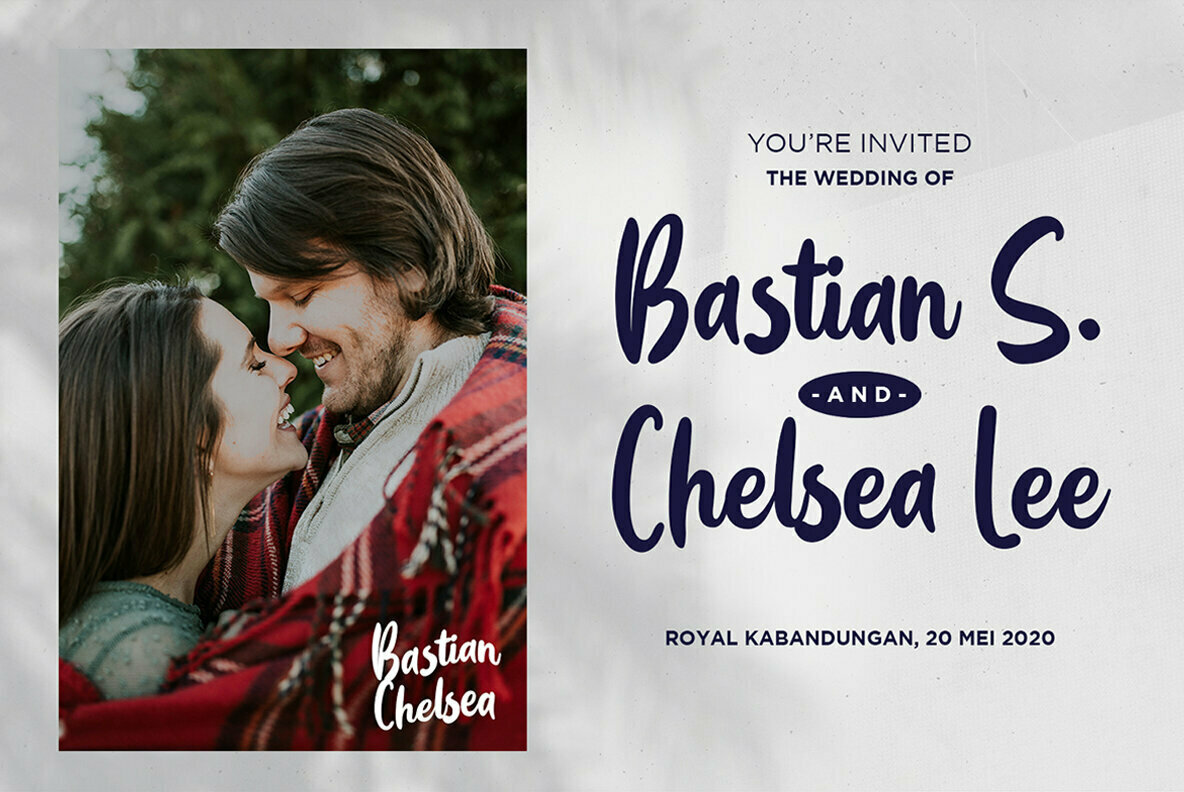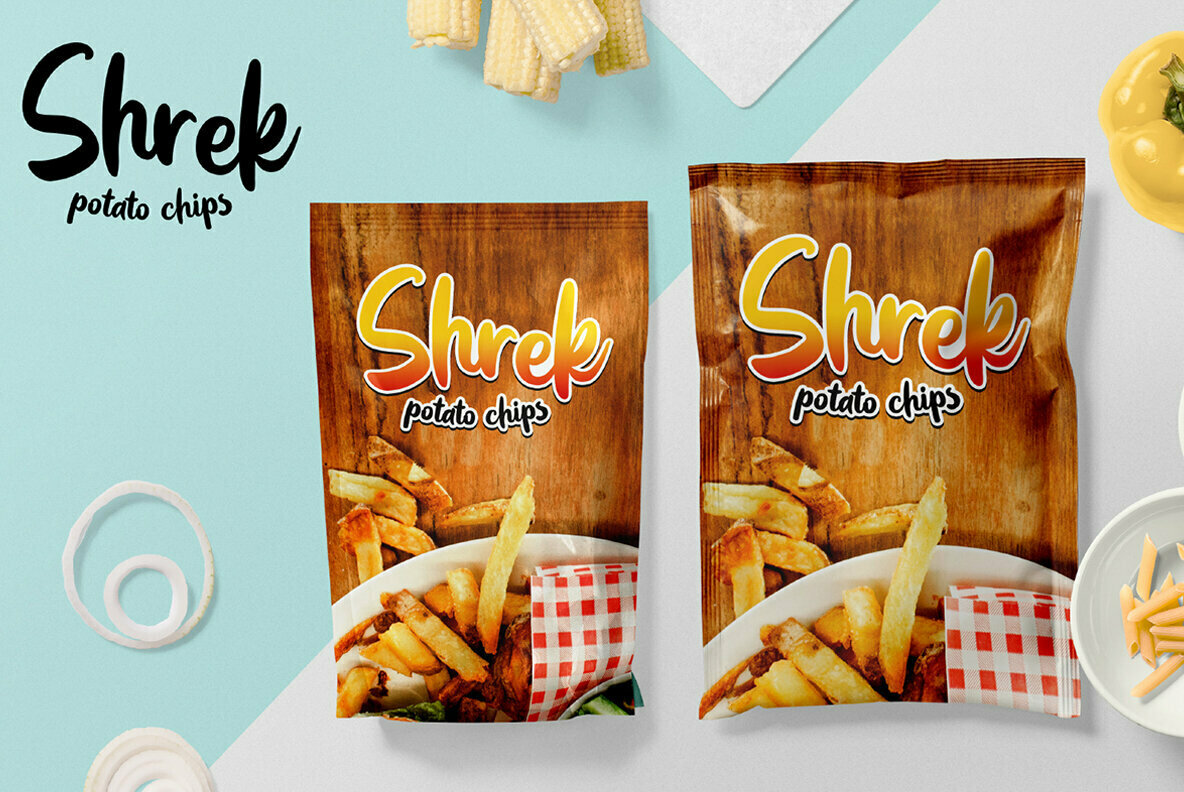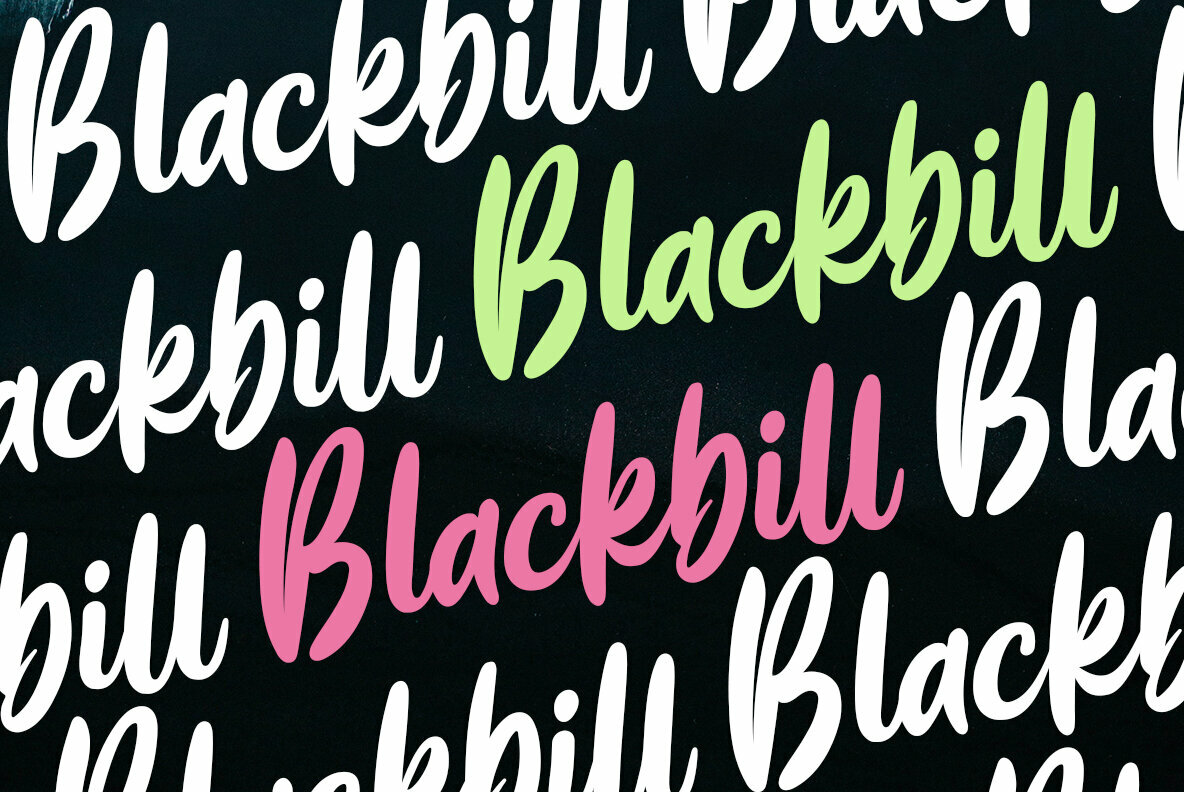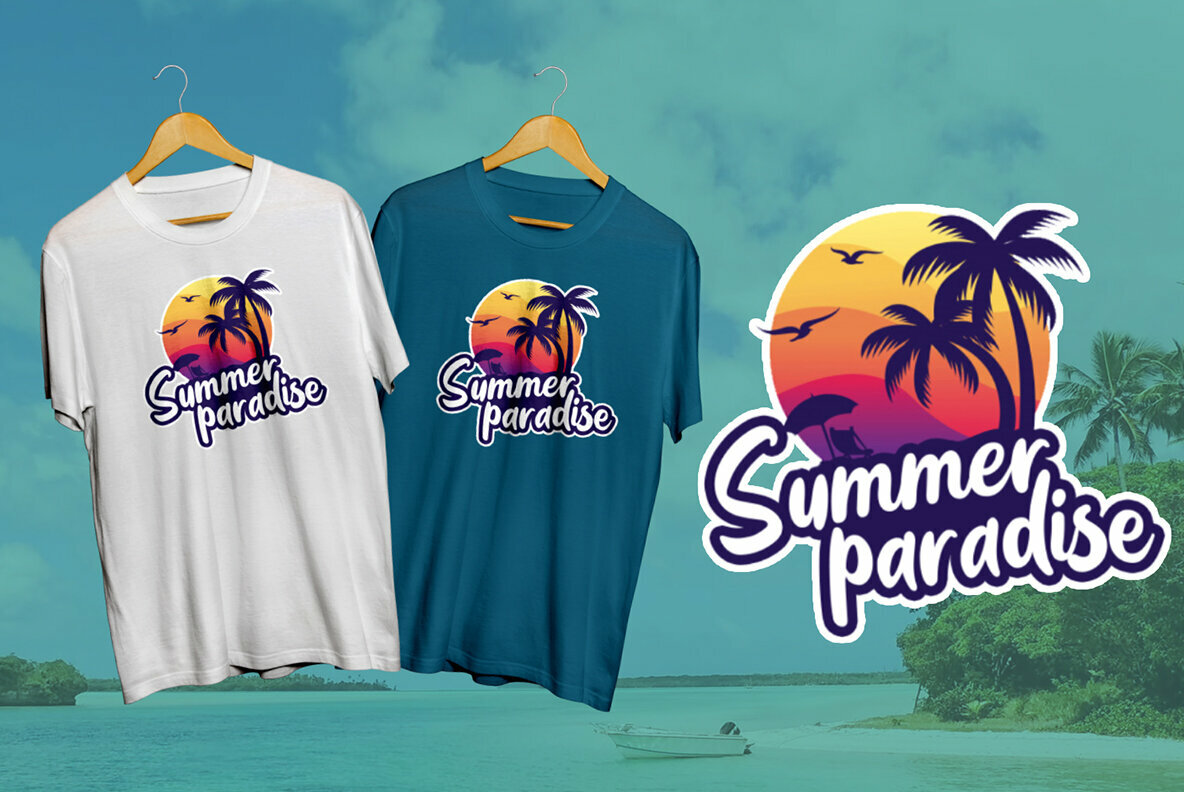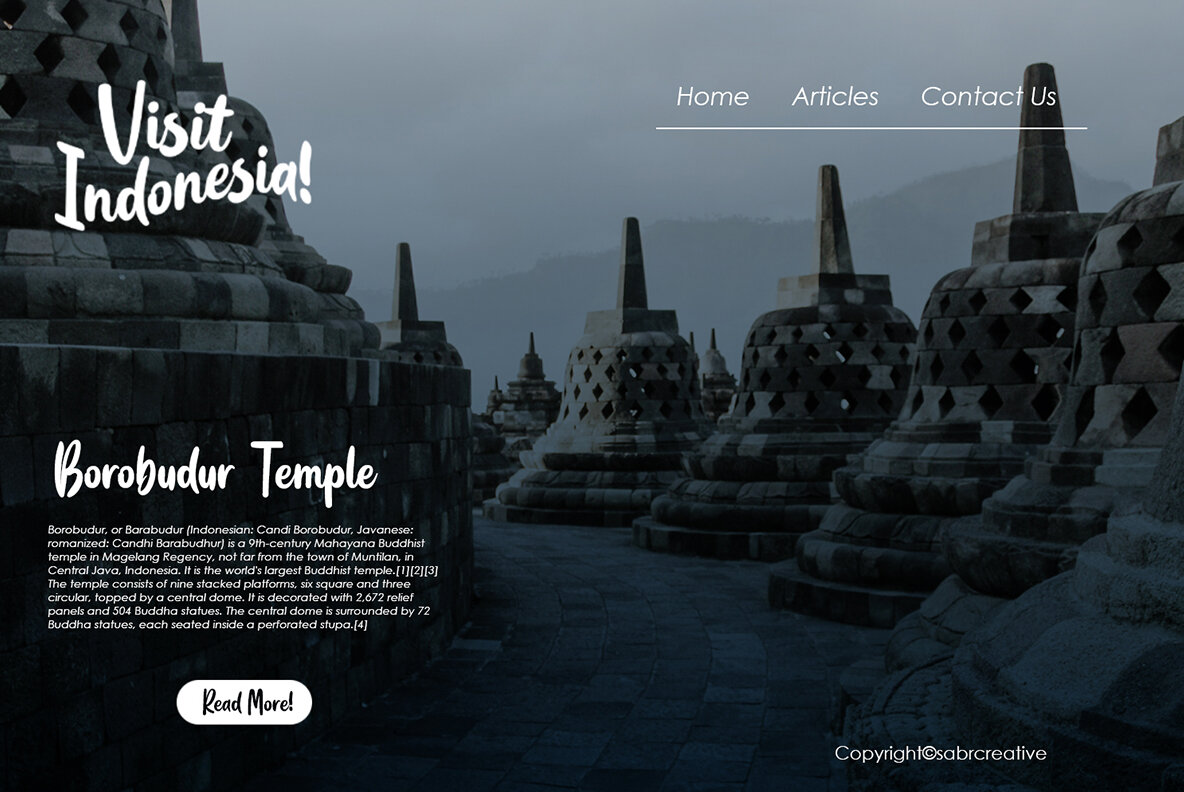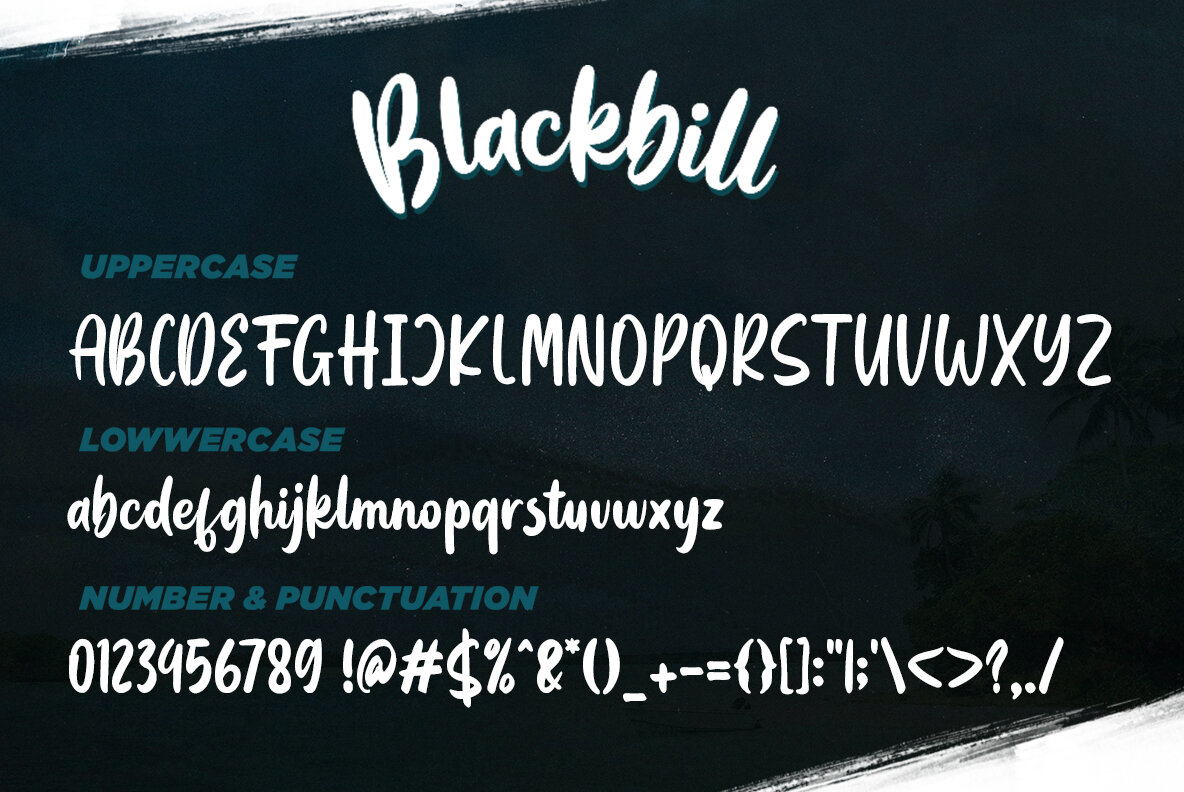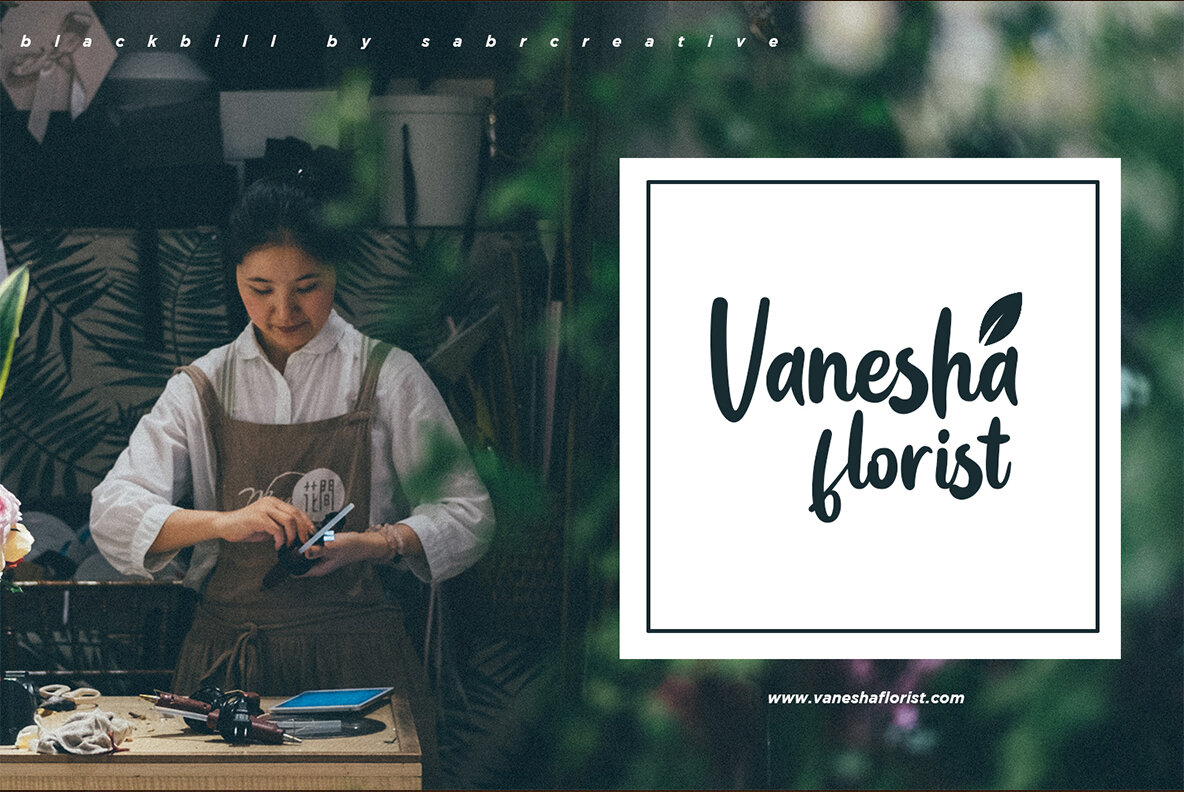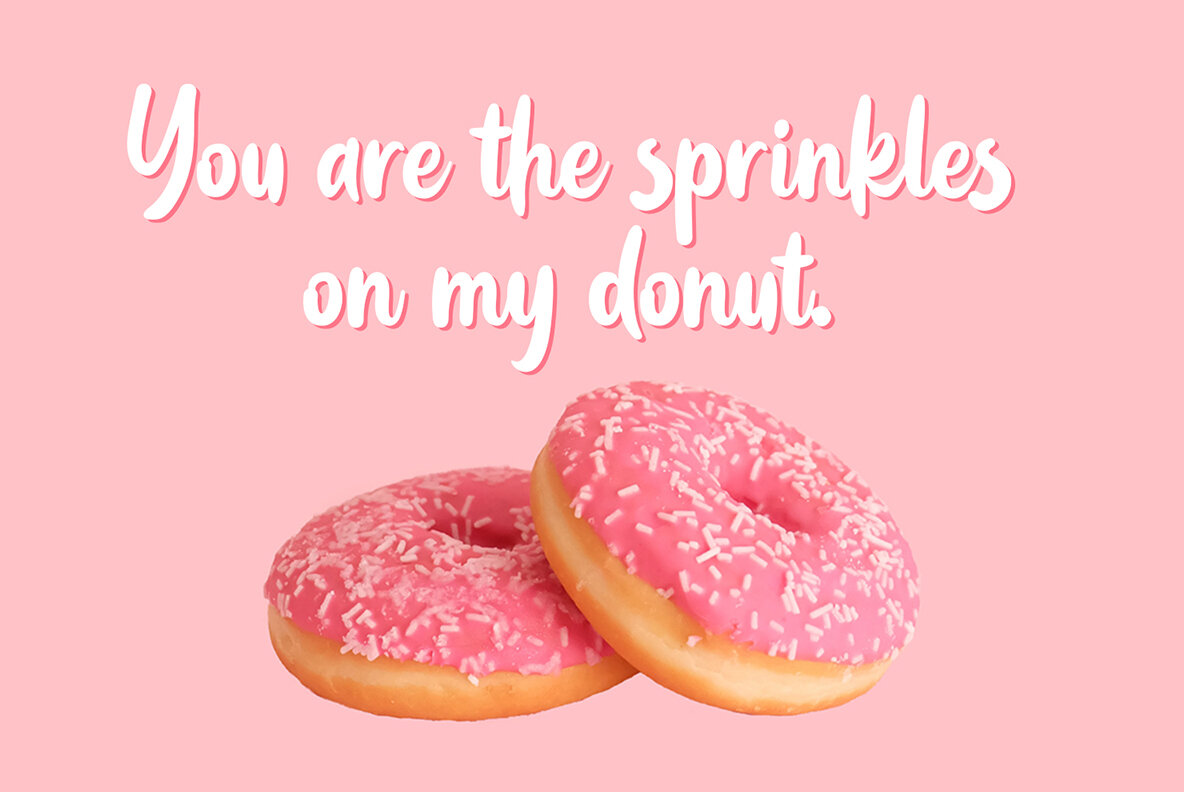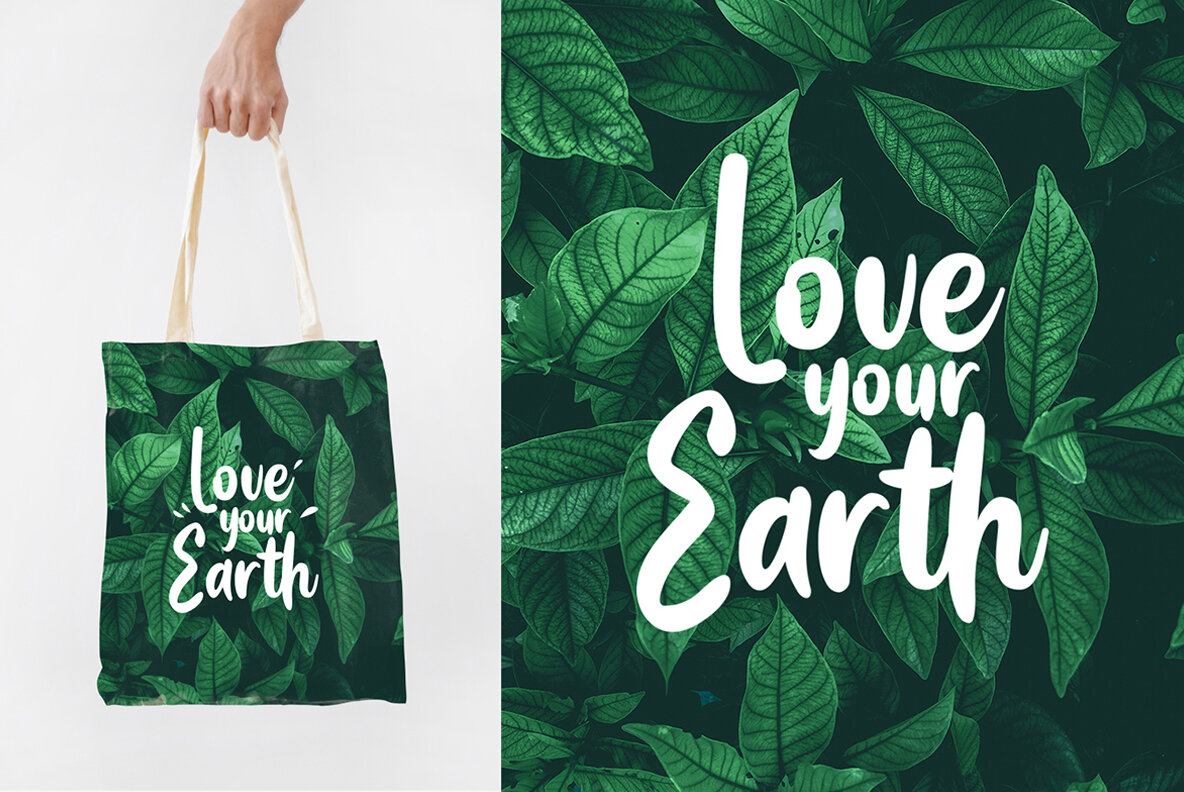
Blackbill
The Blackbill font from Sabrtype Studio exudes a distinctive character shaped by calligraphy brushes and refined through meticulous tracing. This script-style font offers a blend of natural fluidity and structured strength, making it ideal for various design projects. Blackbill's adaptability makes it suitable for a wide range of creative endeavors, seamlessly integrating with diverse stylistic approaches. Its extensive multilingual support ensures compatibility across different cultures and regions, allowing for a versatile application in global projects.Blackbill: Dynamic Script Font with Natural Charisma